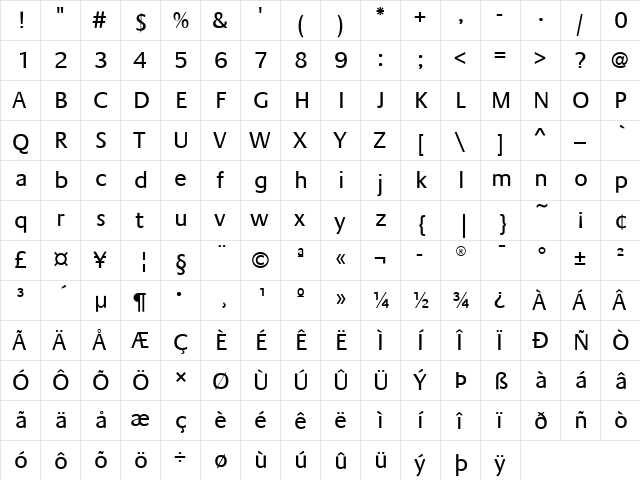
Praxis LT Regular Regular
| Foundry | Linotype Library GmbH |
Praxis LT Regular offers clean, dependable letterforms without strong stylistic allegiance, making it a practical choice for designers who need flexibility. Its slender proportions lend an understated elegance to any composition.